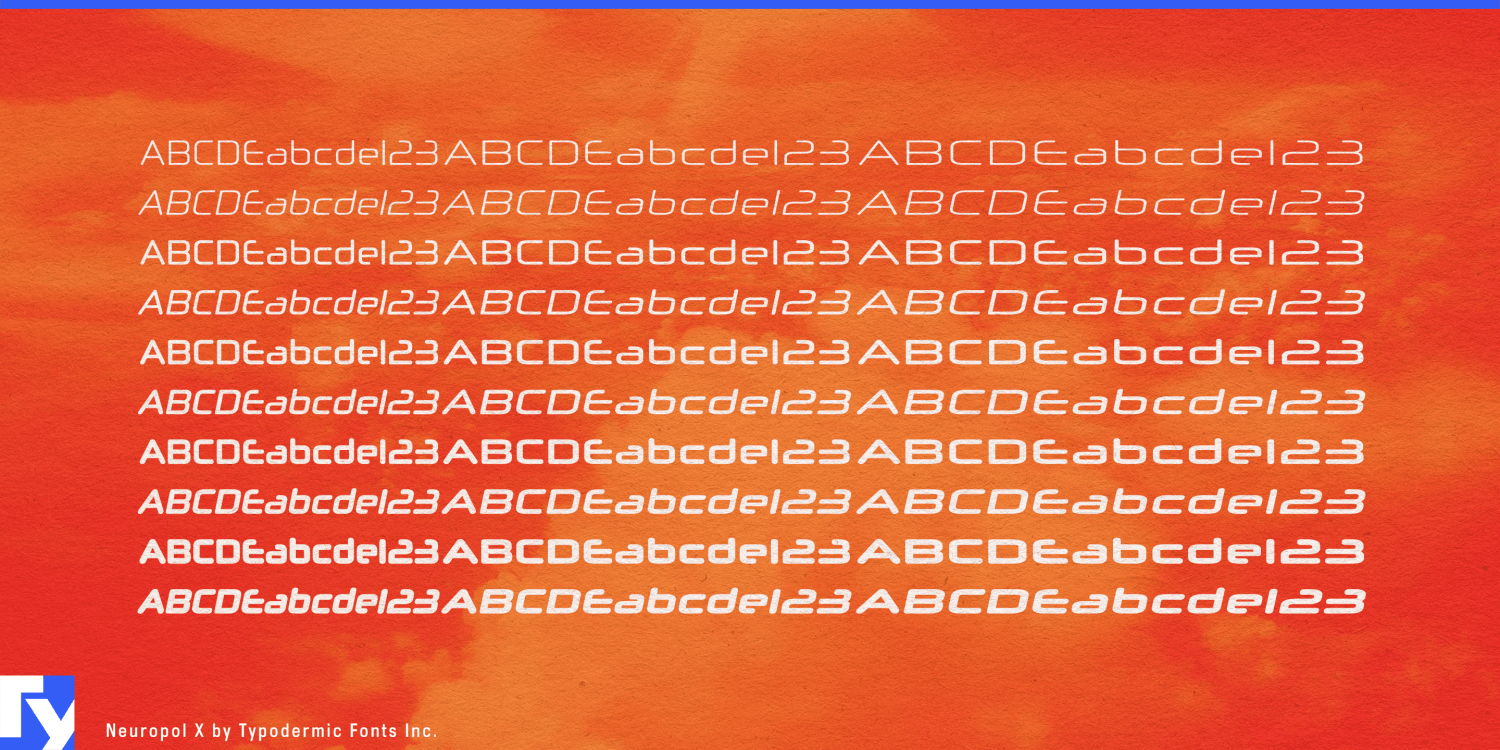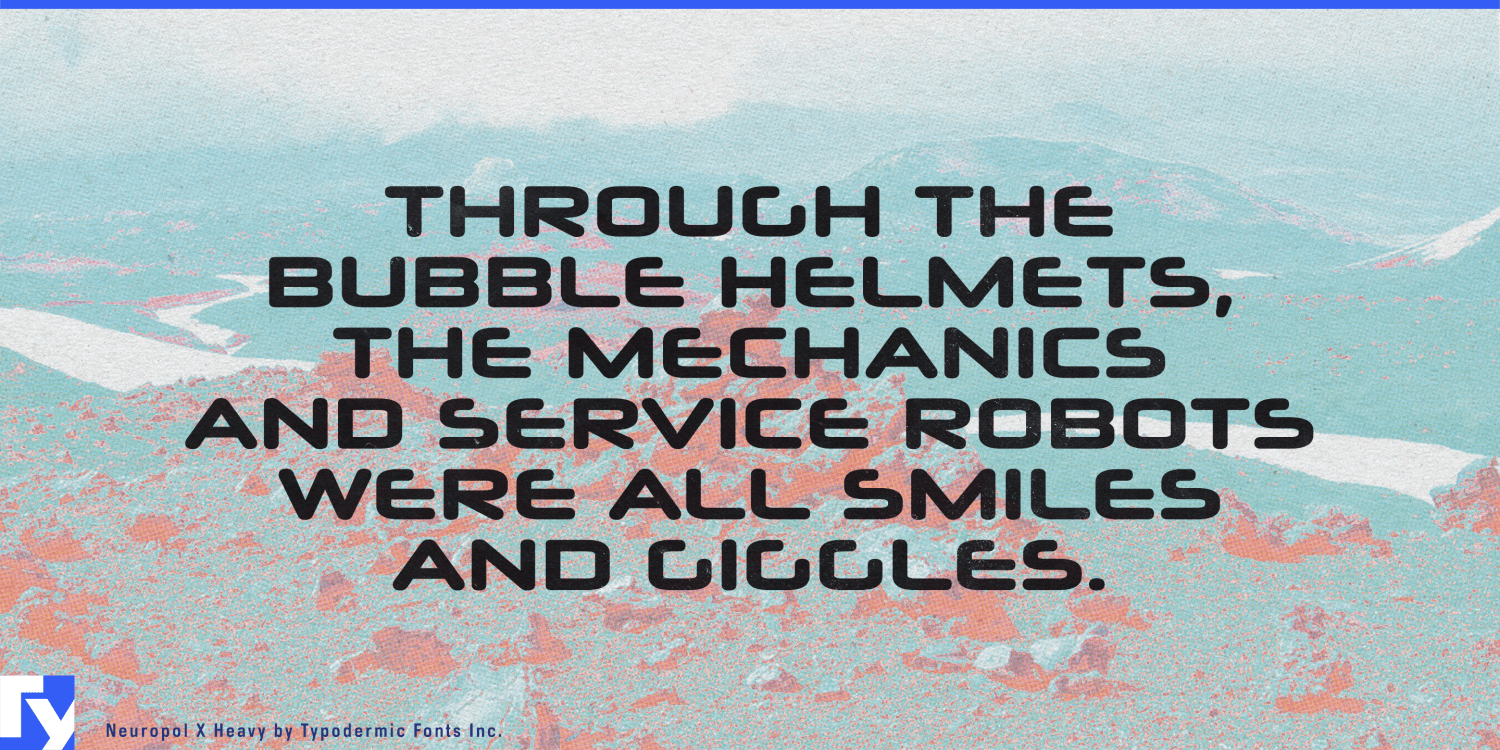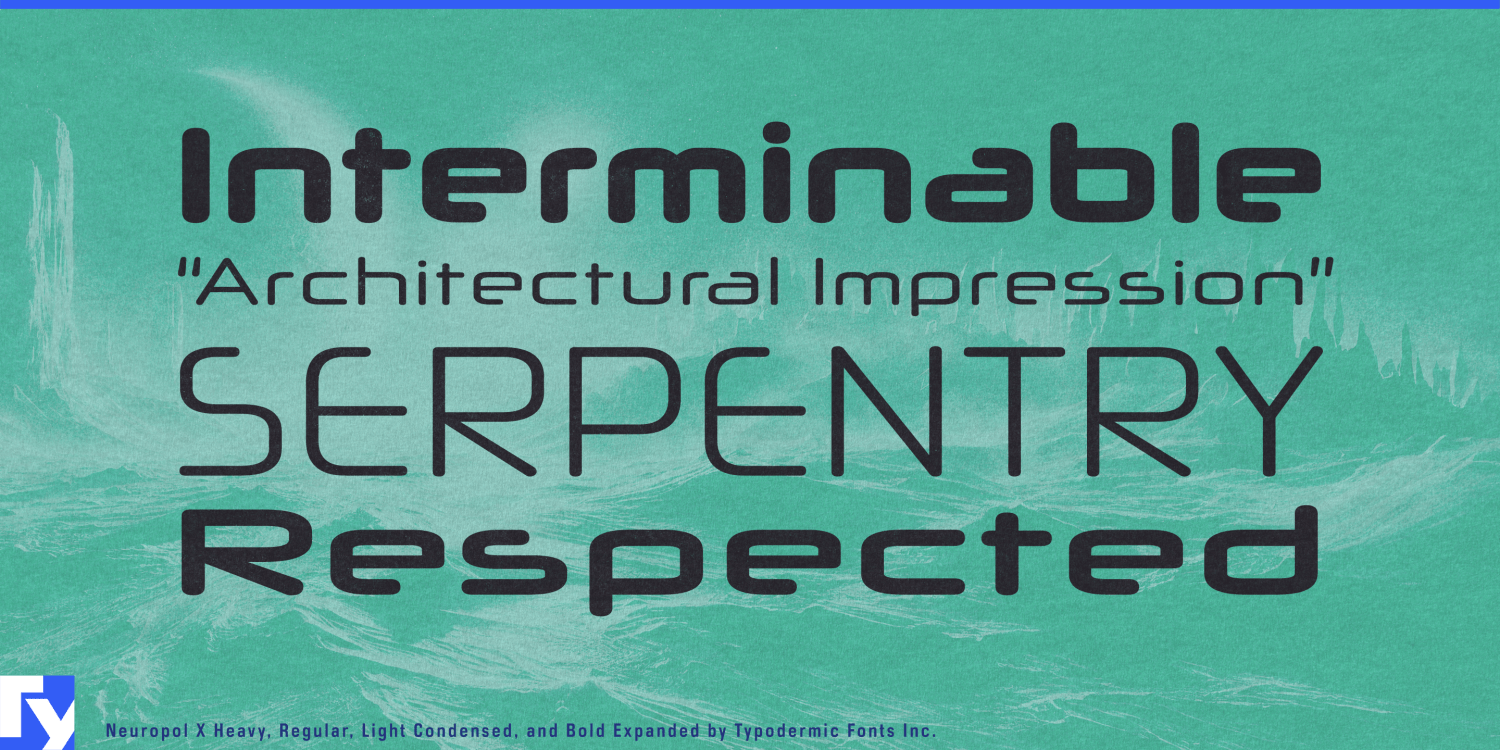
Neuropol X stands as a testament to the enduring power of visionary typography. Born from the iconic Neuropol typeface of 1996, this enhanced iteration captures the essence of Y2K optimism while evolving to meet the demands of contemporary design. With…